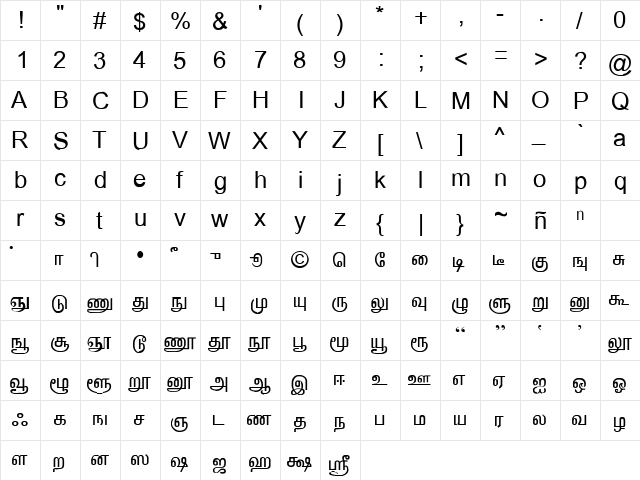
TAB-Ponni Regular
Design Context for TAB-Ponni Typeface
TAB-Ponni offers clean, dependable letterforms without strong stylistic allegiance, making it a practical choice for designers who need flexibility.
Pro Tip: Use TAB-Ponni in both headline and body roles to test its range before committing to a single application.